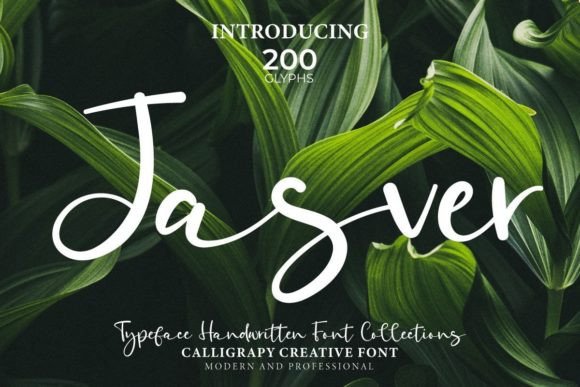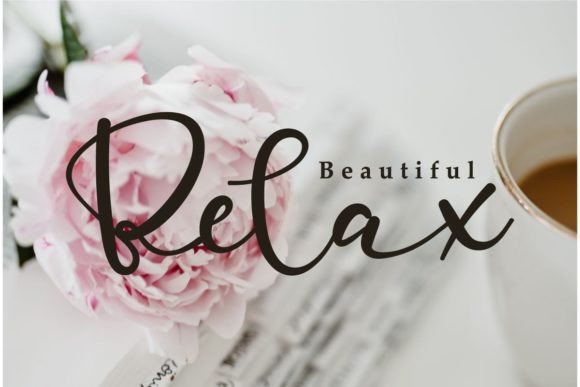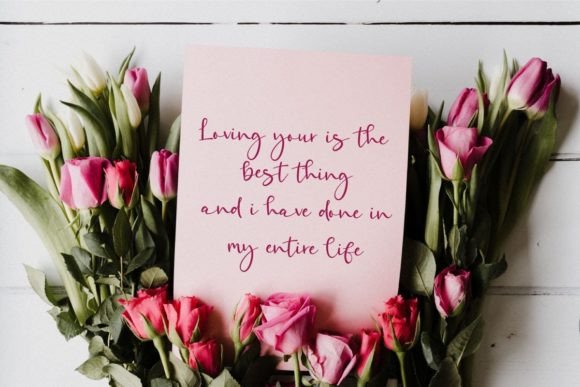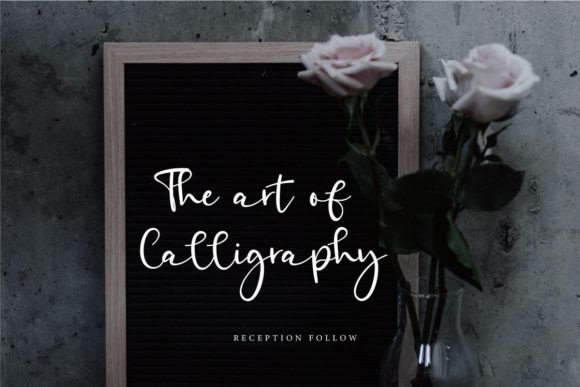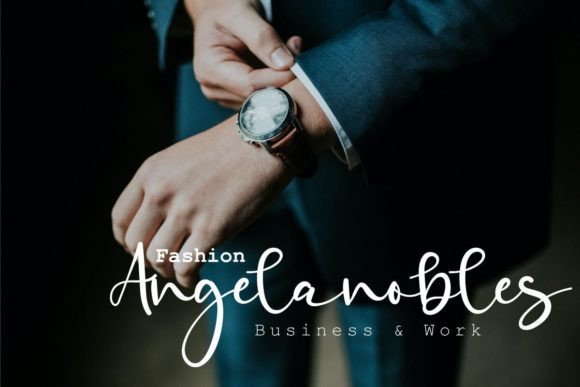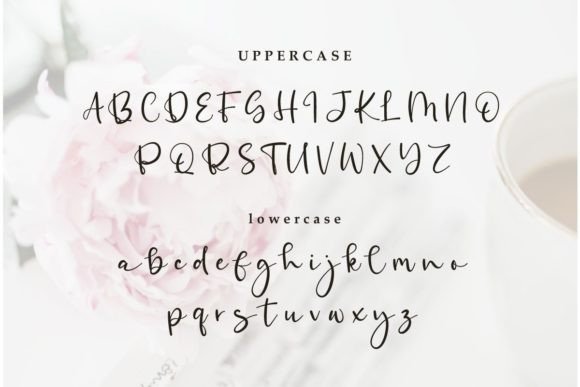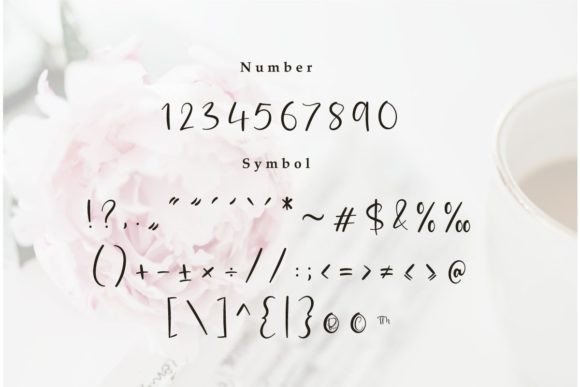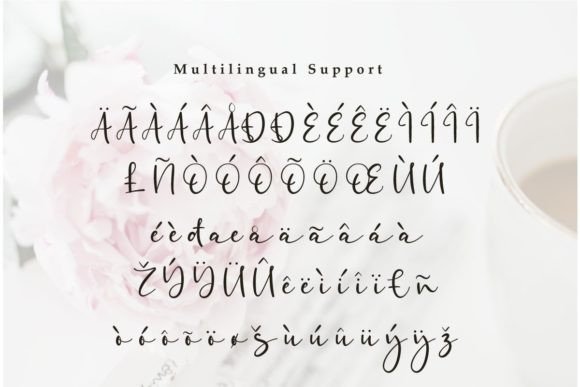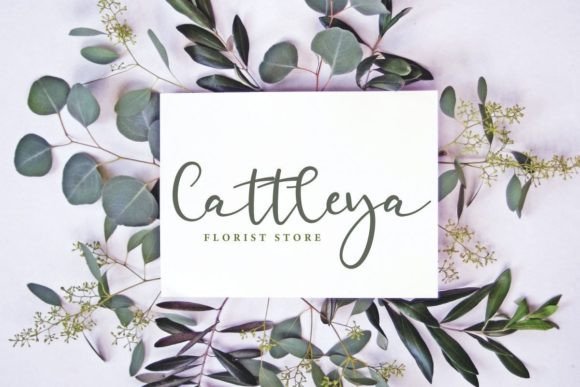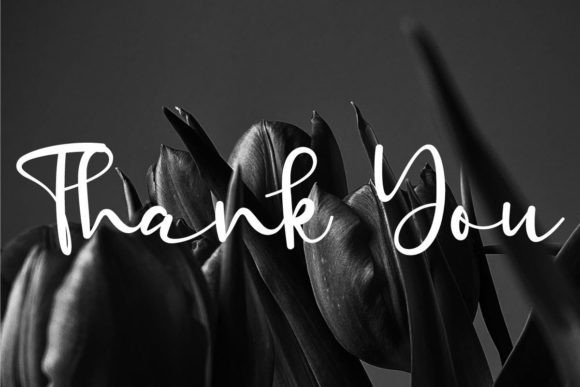
Jasver Font
About Jasver Font
“Jasver” is a beautiful handwritten font that brings a touch of elegance to a variety of design projects. Its beauty makes it a versatile choice for wall displays, wedding invitations, social media posts, logos, advertisements, product packaging, product designs, labels, photography, watermarks, invitations, stationery, and any project that demands impressive typography.
The versatility of “Jasver” allows it to seamlessly adapt to different design contexts, making it a valuable asset for a wide range of creative projects. Picture it on a wedding invitation, where its beautiful script enhances the romantic and sophisticated atmosphere of the event. Imagine using it on product packaging, adding a touch of elegance to your brand.
The handwritten charm of “Jasver” brings a sense of authenticity and uniqueness to your designs, making them visually appealing and memorable. Whether you’re working on social media posts or creating a logo, this font is designed to elevate your typography and leave a lasting impression.
As you incorporate “Jasver” into your design projects, let its beauty be the key element that enhances your work. Whether you’re designing invitations, product packaging, or any other creative project, “Jasver” invites you to infuse your designs with its beautiful handwritten style, ensuring that your projects stand out with impressive typography.